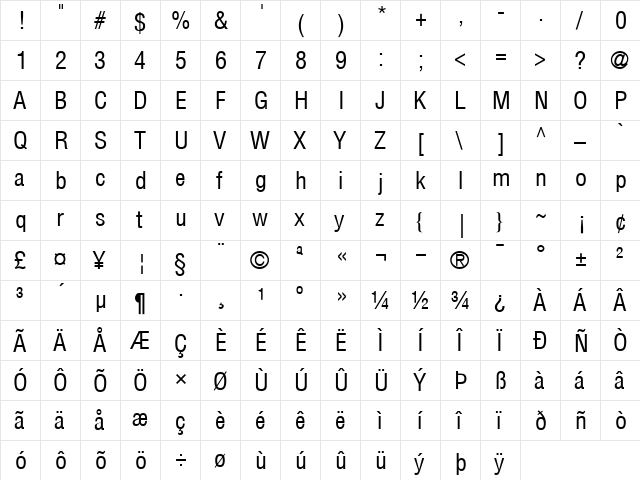
Helvetica-CondensedMedium Medium Font Preview
Helvetica-CondensedMedium Medium
Helvetica-CondensedMedium Medium Font Details
Design Context for Helvetica-CondensedMedium Typeface
Helvetica-CondensedMedium offers clean, dependable letterforms without strong stylistic allegiance, making it a practical choice for designers who need flexibility. The condensed width makes it efficient for tight spaces without sacrificing legibility.